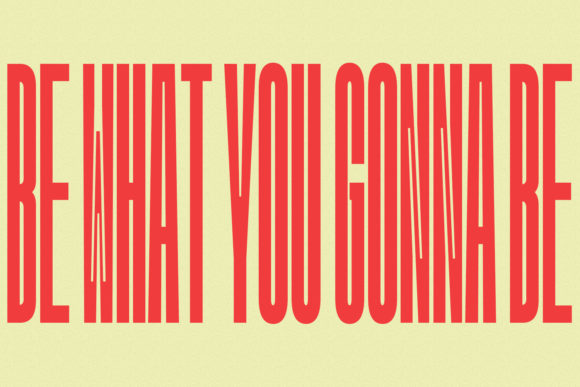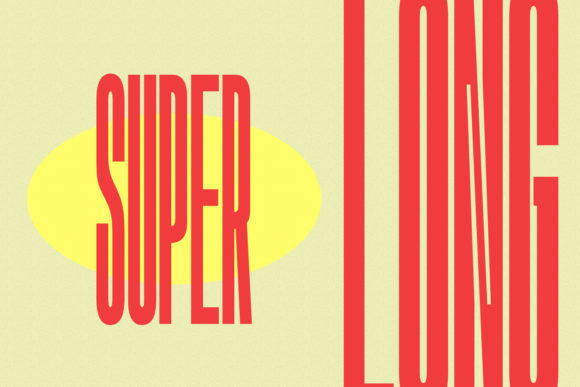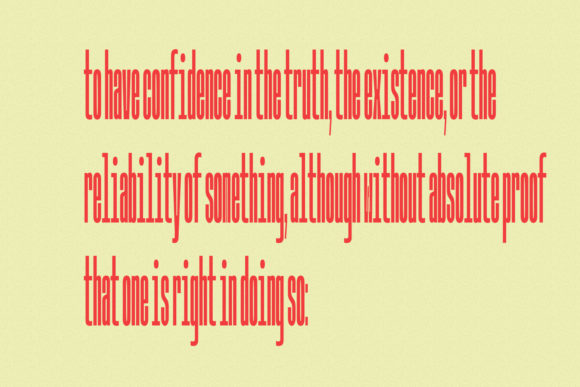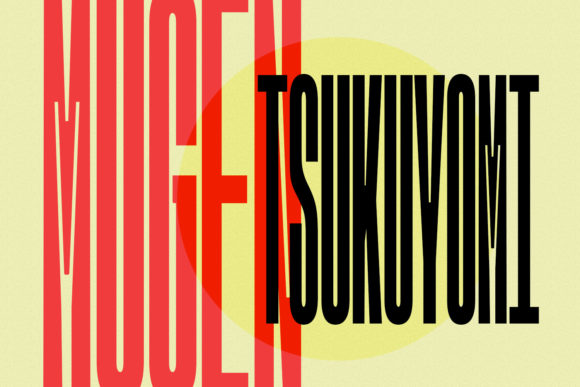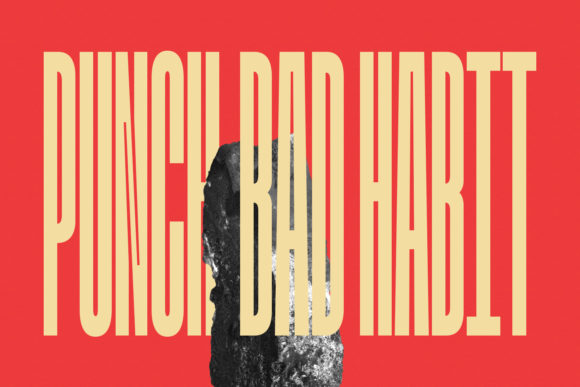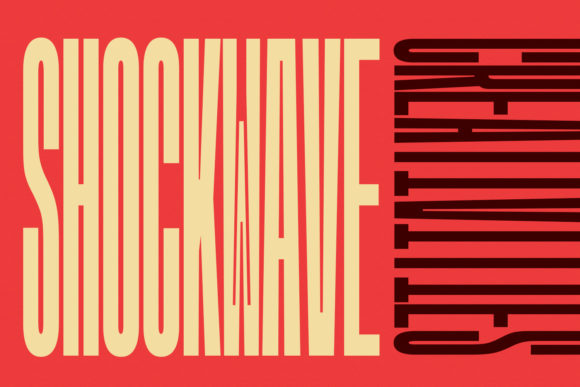
Introduction to Gramary Font
Do you remember the moment when you finally find the perfect font for your creative project? It’s like stumbling upon a hidden gem that elevates your design to the next level. For designers, discovering a high-quality font that perfectly captures the essence of their vision is a dream come true. And that’s exactly what the Gramary Font offers – a modern, cool, and tall sans serif font that’s perfect for various designs.
Whether you’re working on a t-shirt design, creating sportswear logos, or crafting advertisements, the Gramary Font is an invaluable design resource. Its versatility and unique style make it an excellent choice for designers who want to stand out from the crowd. Plus, with a transparent background option, you can easily customize it to fit your design needs.
Key Features of Gramary Font
- High-quality, professional design suitable for various creative projects, including logos, graphics, and text-based designs.
- Unique characteristics include a clean, modern aesthetic and a versatile range of styles, making it suitable for a wide range of creative projects.
Honest Review: Gramary Font
As a designer, I’m always on the lookout for high-quality design resources that can elevate my creative projects. The Gramary Font is one such resource that caught my attention, and I’m excited to share my honest review.
What works well: ✨ The Gramary Font has a unique, elegant design that lends itself well to a variety of creative projects, from branding to editorial design. The font is also available for free download, making it an excellent design resource for designers on a budget. The font also supports transparent backgrounds, which is a nice touch.
Here are some key features of the Gramary Font:
- Unique, elegant design
- Suitable for branding, editorial design, and more
- Supports transparent backgrounds
Overall, I’m impressed with the Gramary Font’s high quality and versatility. While it may have some limitations, it’s an excellent design resource for designers looking for a free font that can elevate their creative projects.
Tips for Getting the Most Out of Gramary Font
To get the most out of the Gramary Font, use it in combination with other design elements, such as images and graphics. Experiment with different font sizes, colors, and styles to create a unique and eye-catching design.
The Gramary Font is commonly used in creative projects, such as graphic design, branding, and digital marketing. Its transparent background and high-quality design make it ideal for use in overlays, headings, and titles.